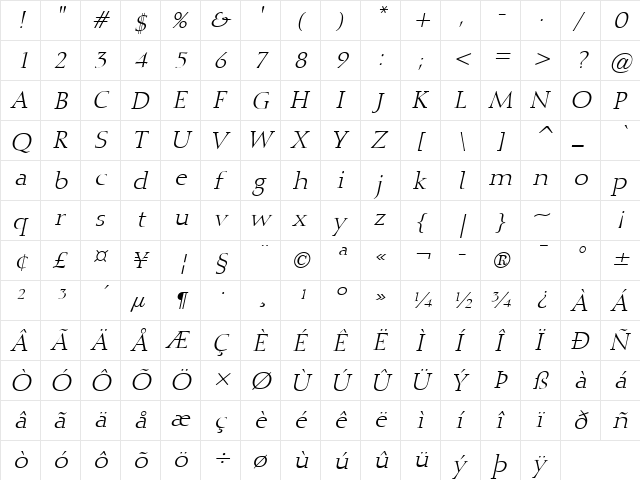
Cally 721 Italic
Design Context for Cally 721 Typeface
Cally 721 takes a measured approach to typography — its balanced proportions and neutral character make it a reliable workhorse for both digital and print work. Its italic angle brings a sense of urgency and motion to the letterforms.